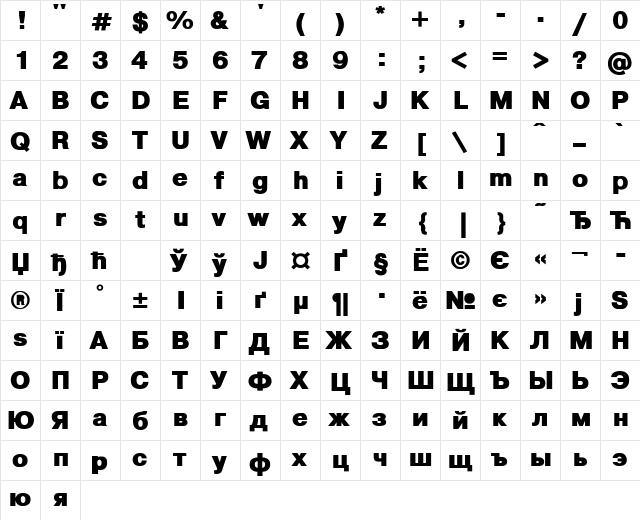
Pragmatica Black Regular Font Preview
Pragmatica Black Regular
Pragmatica Black Regular Font Details
Design Context for Pragmatica Black Typeface
Pragmatica Black offers clean, dependable letterforms without strong stylistic allegiance, making it a practical choice for designers who need flexibility.